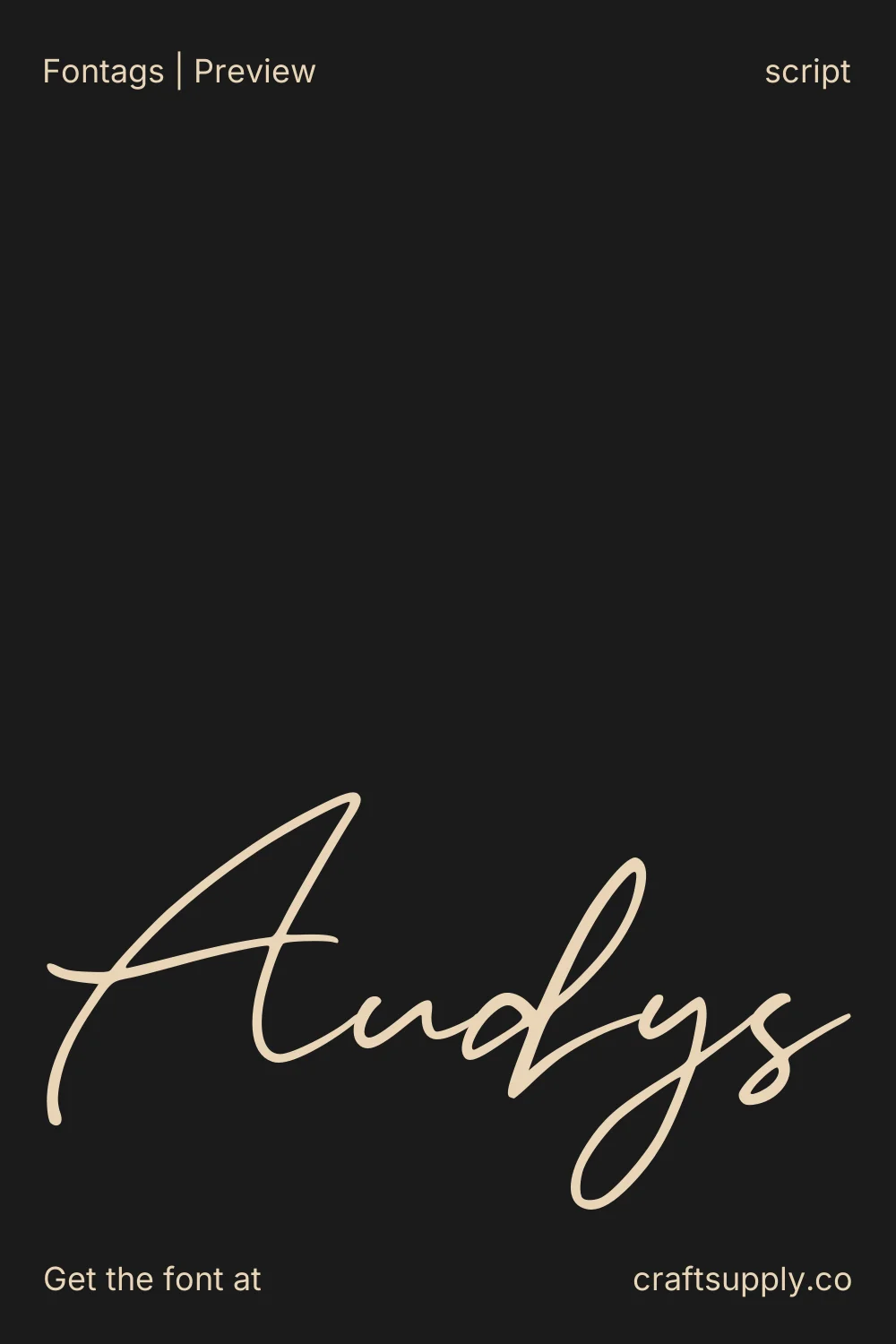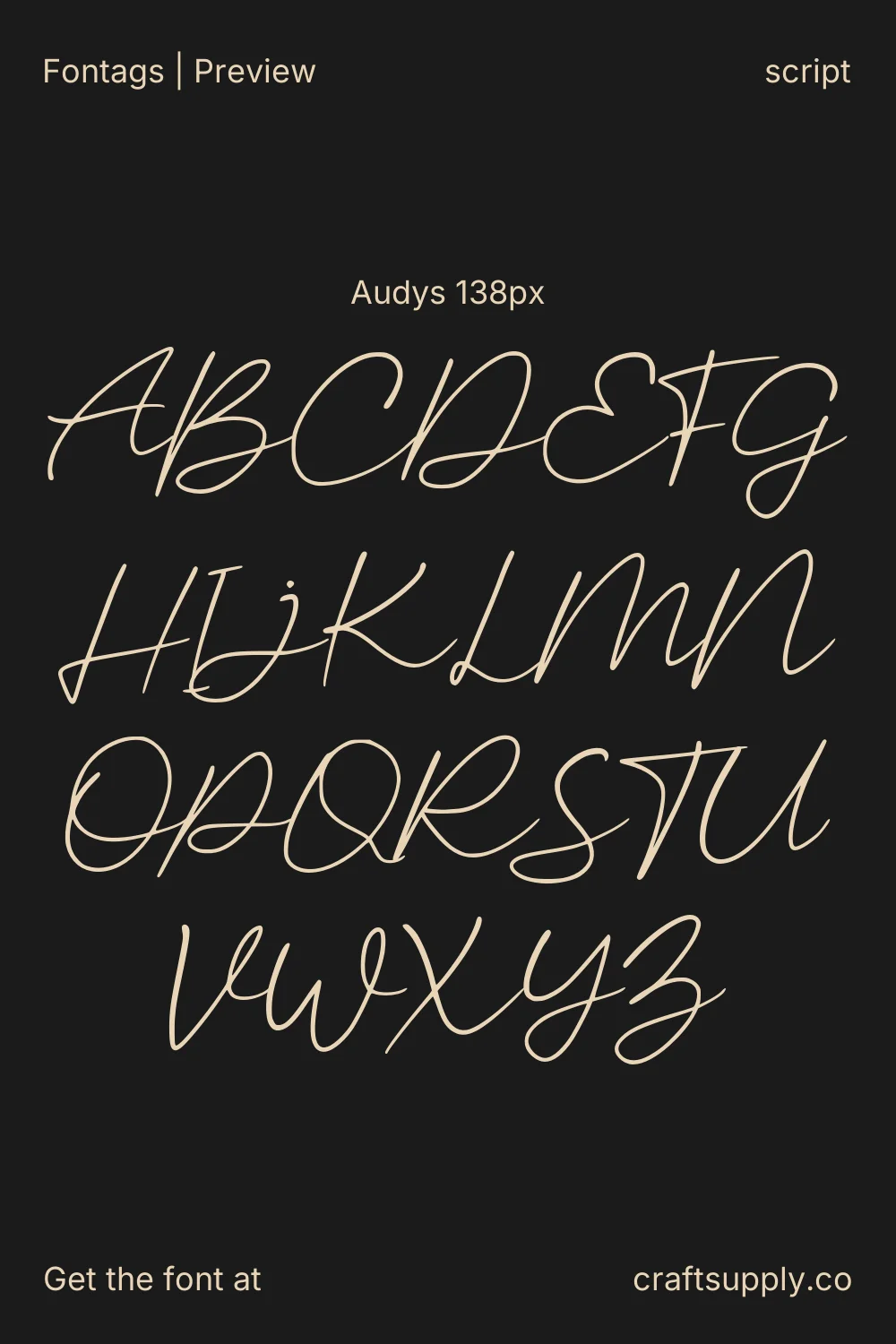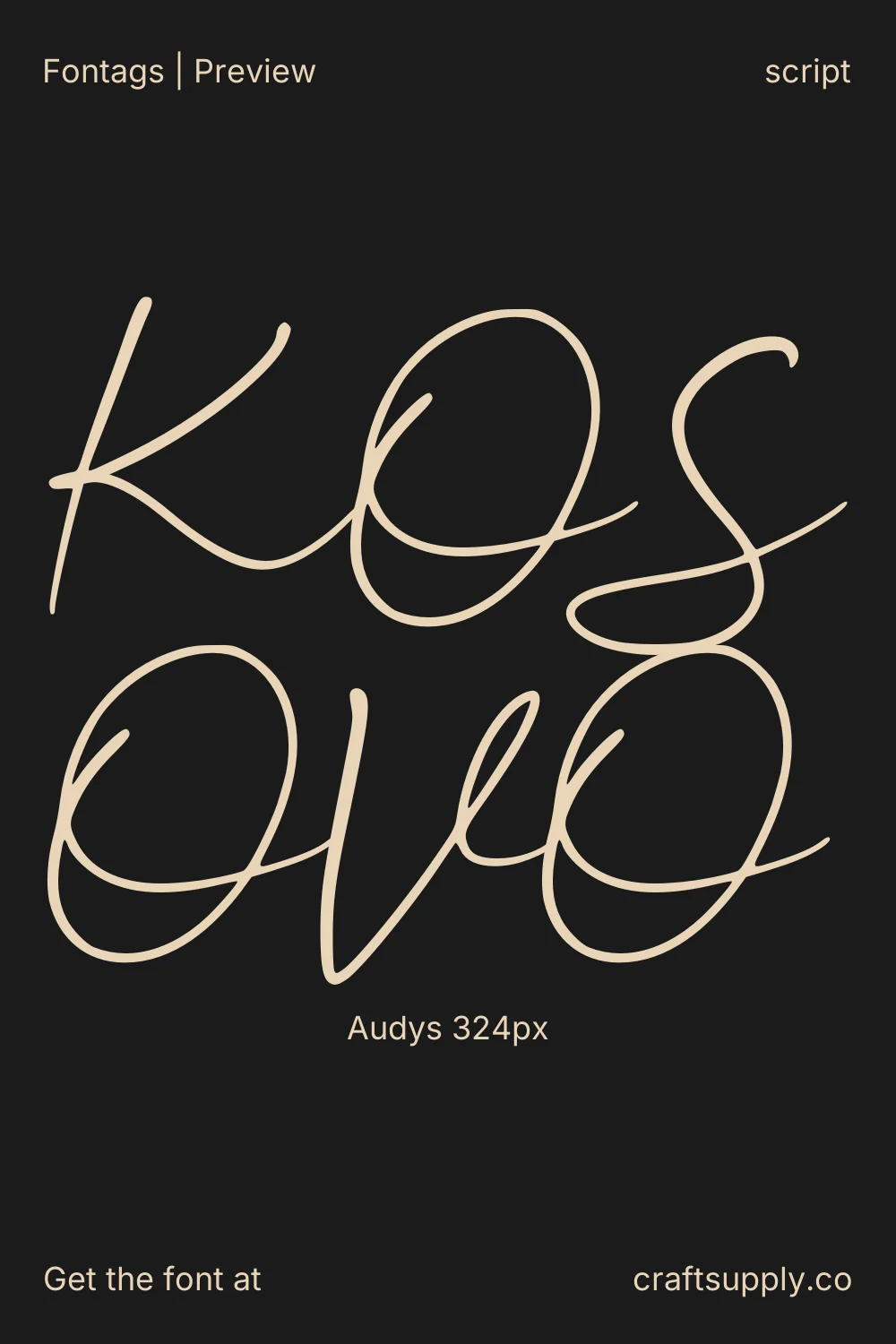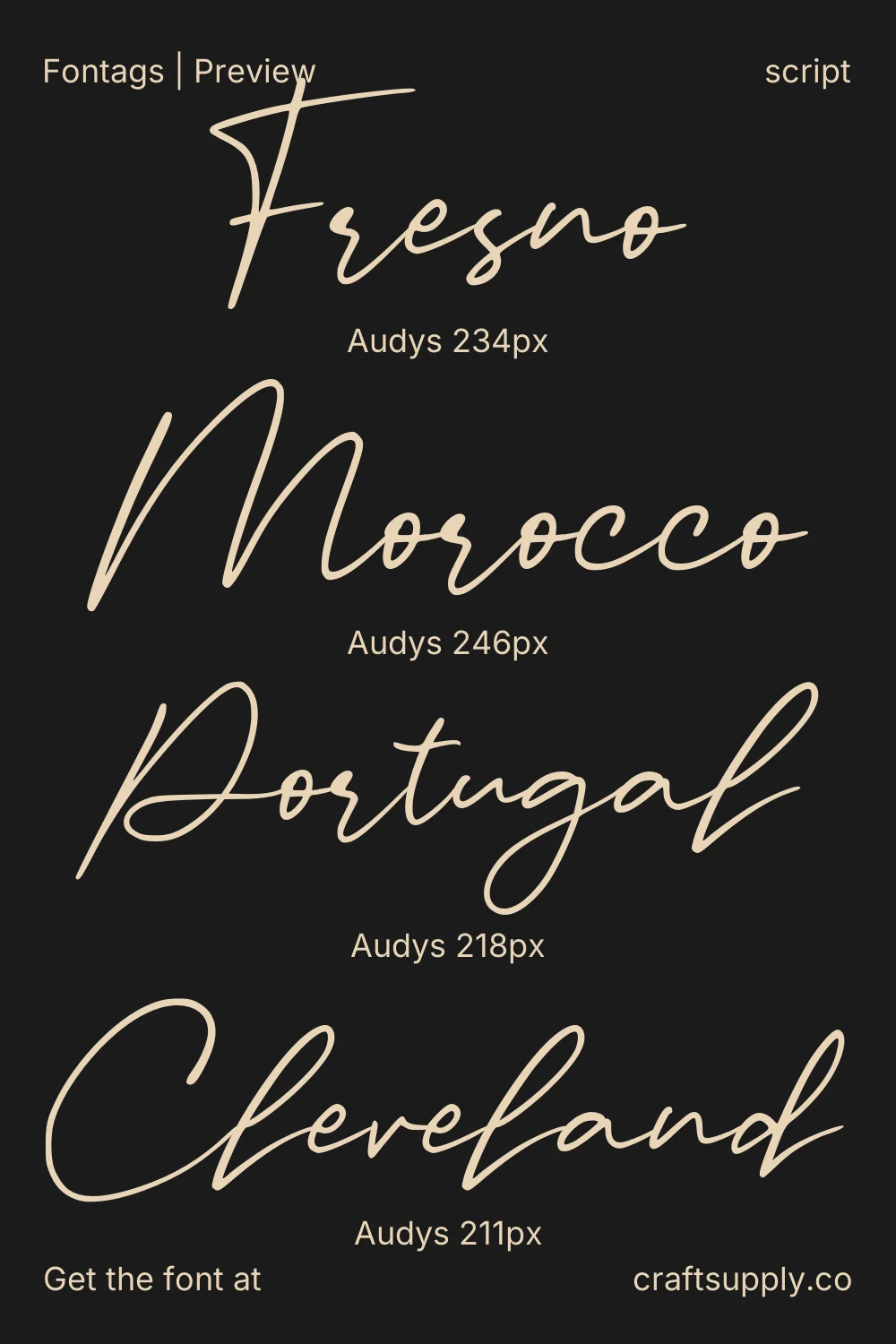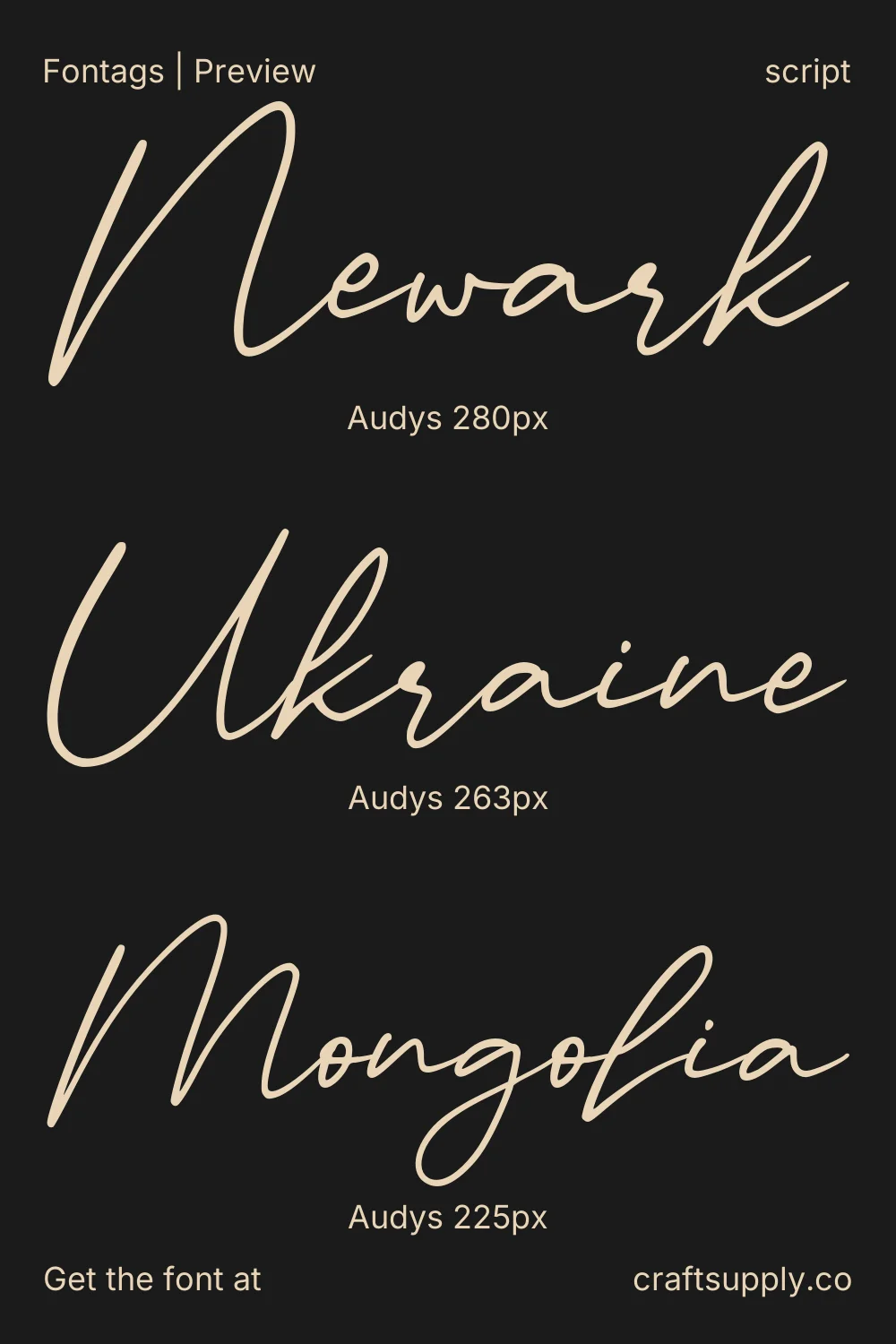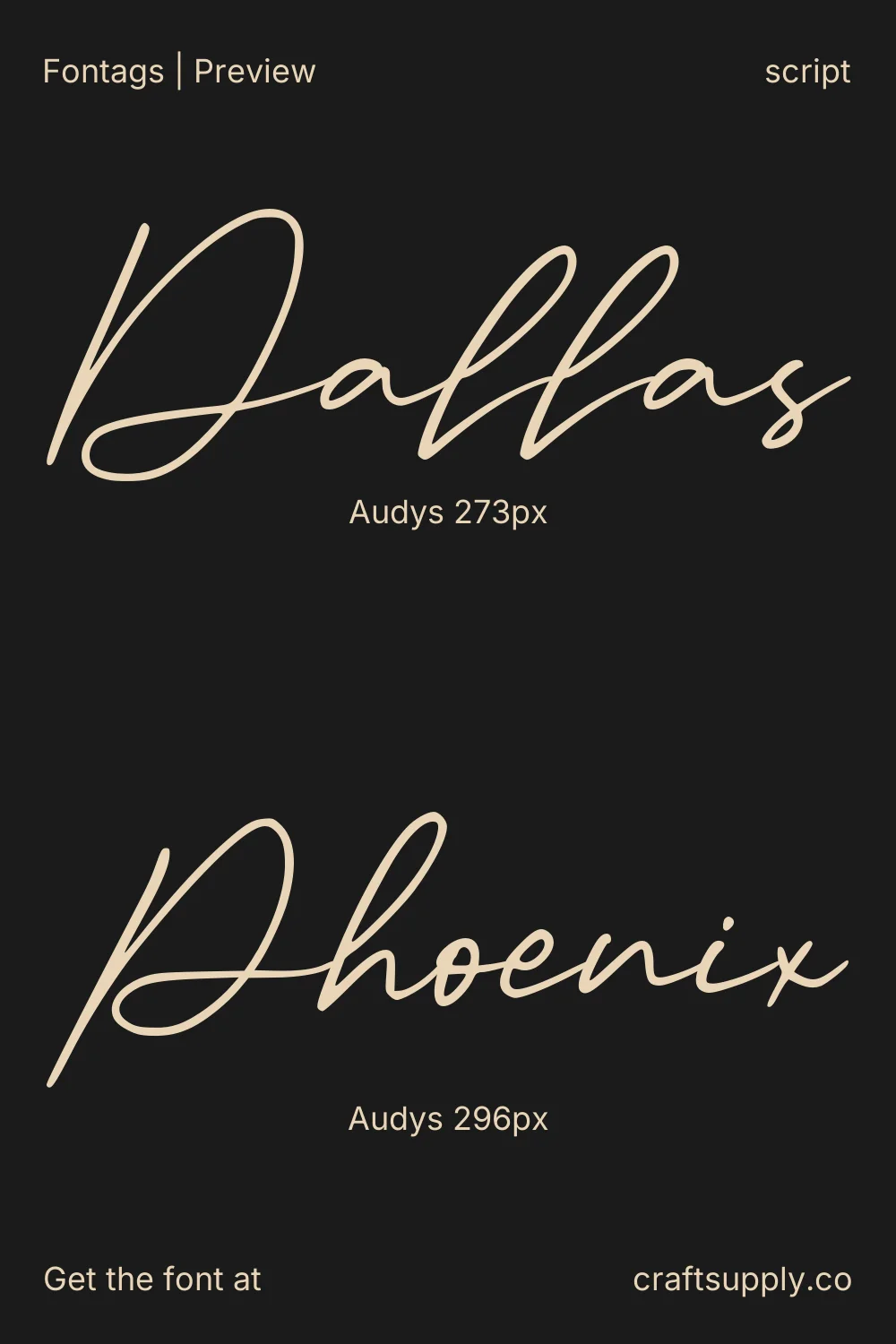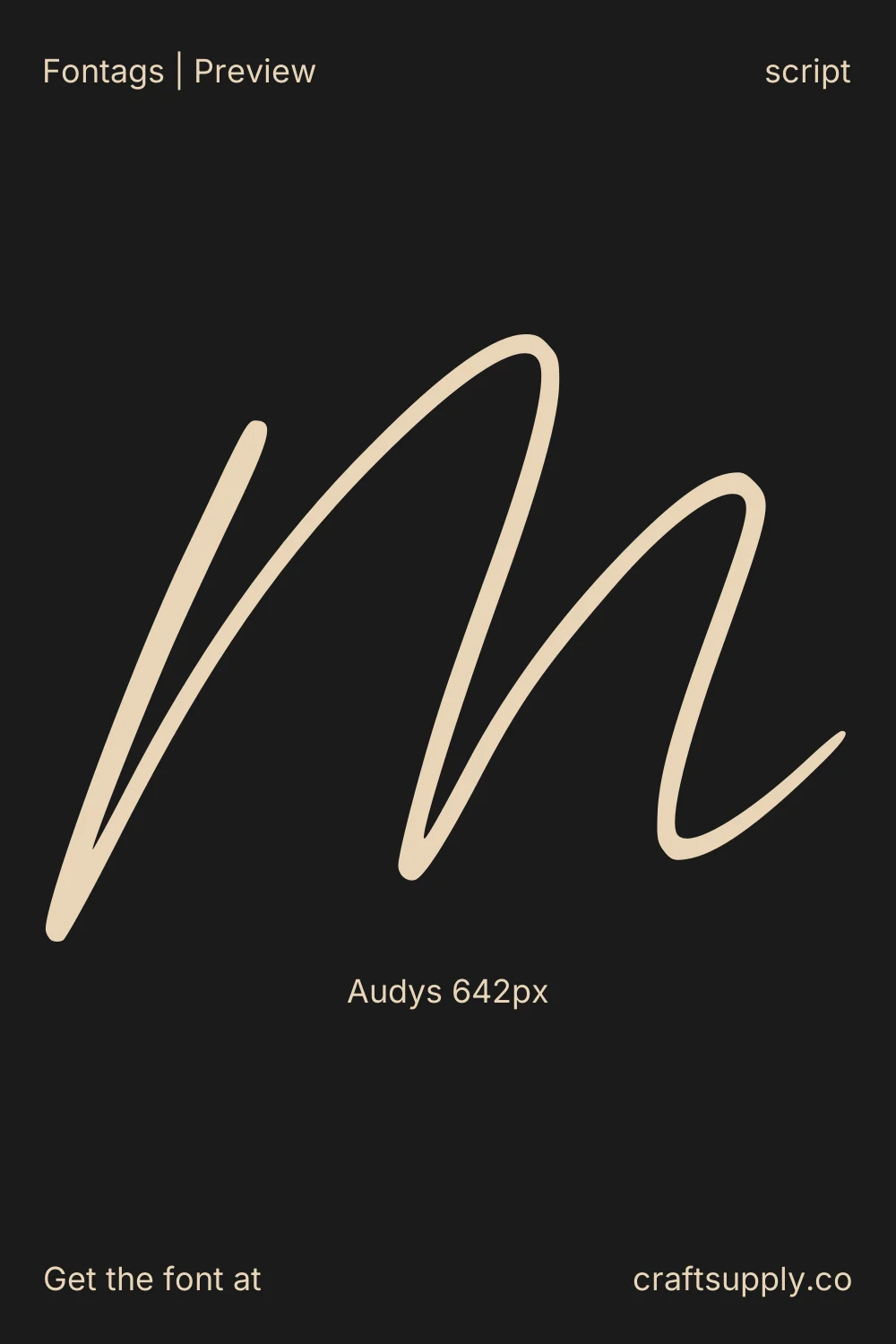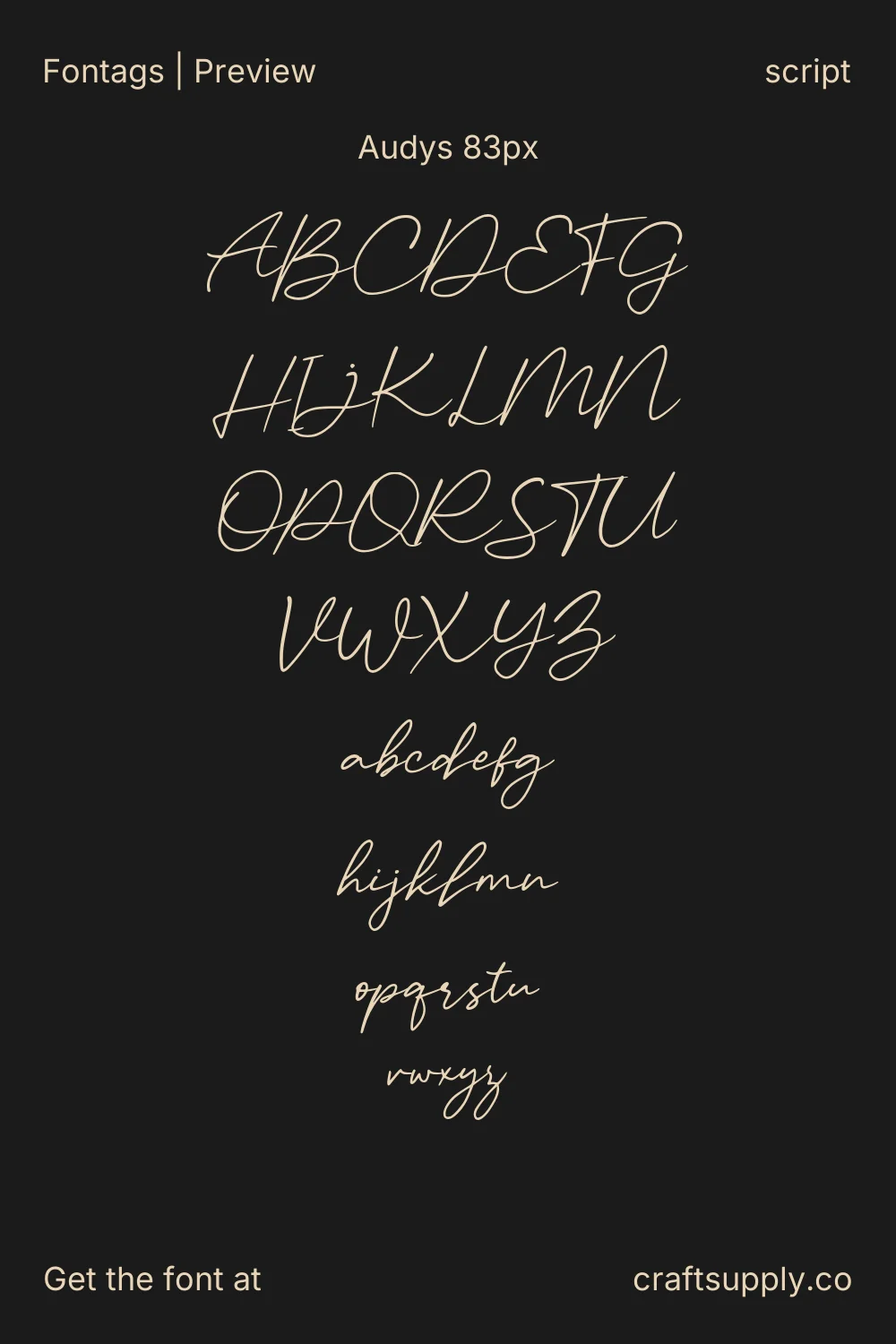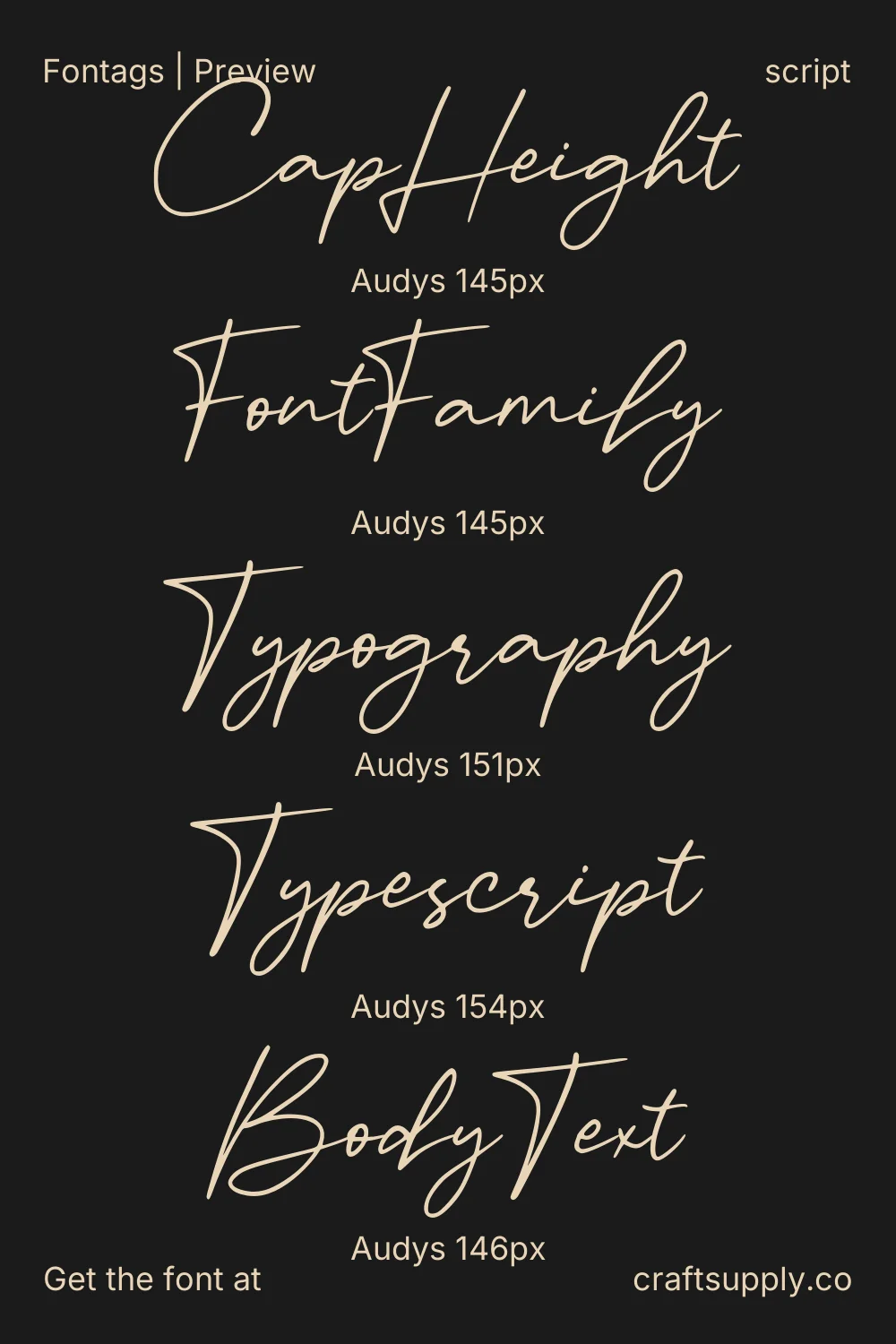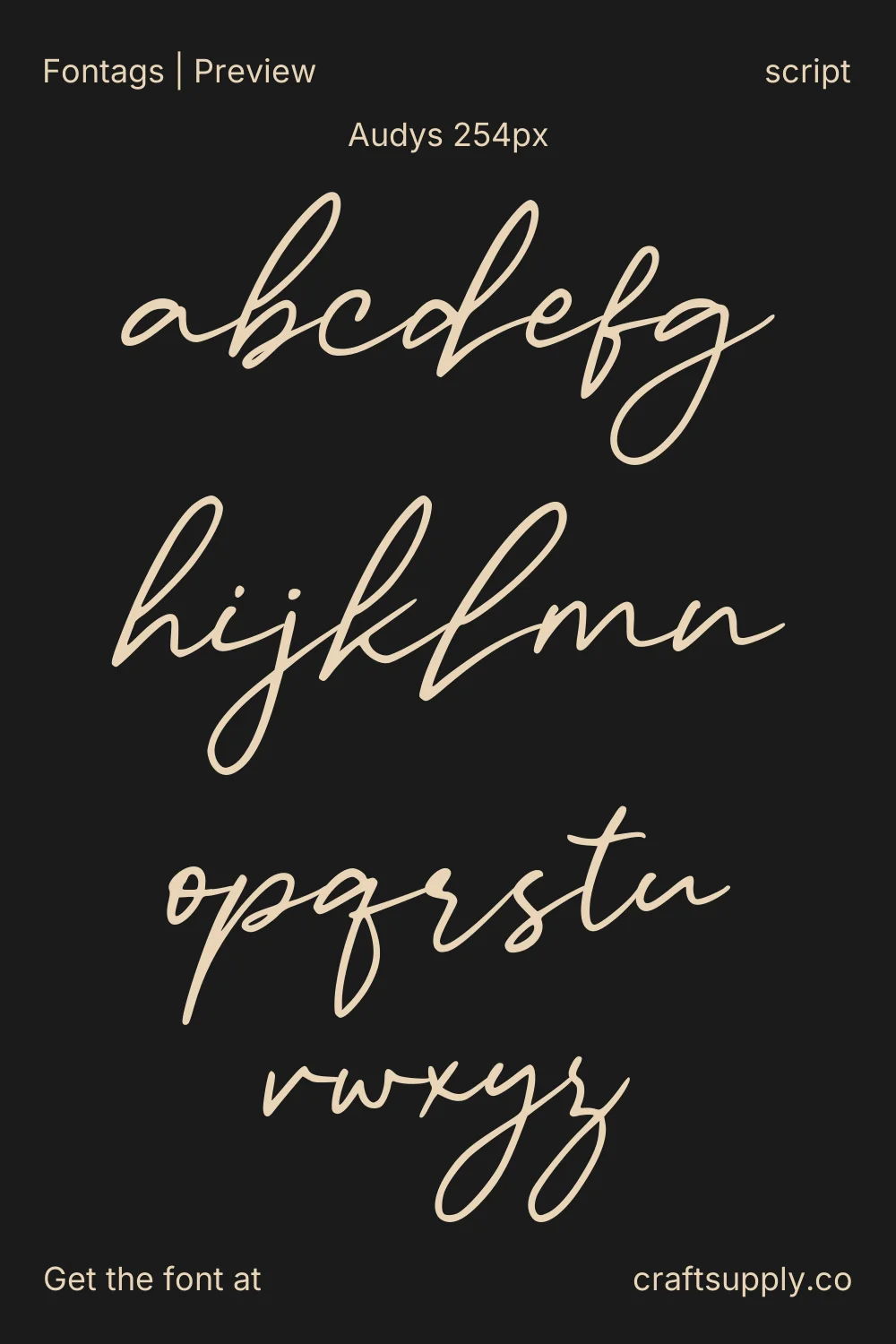
Audys
Audys is an elegant handwritten script font that captures the natural expression of real handwriting. Its refined and chic personality makes it perfect for fashion brands, wedding boutiques, e-commerce, and any project seeking an upscale aesthetic. Ideal for logos, branding, invitations, quotes, and social media graphics.